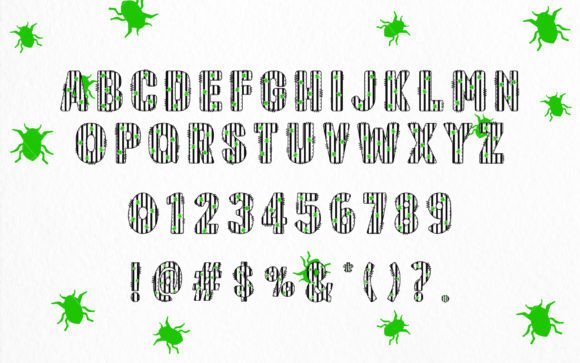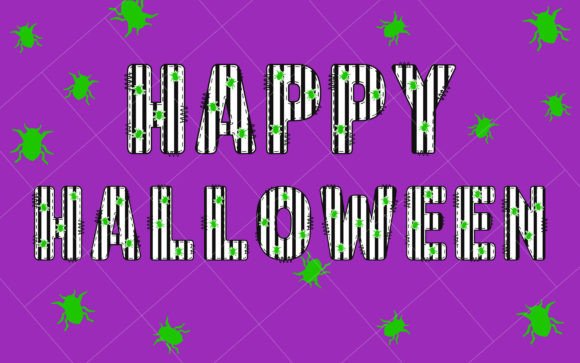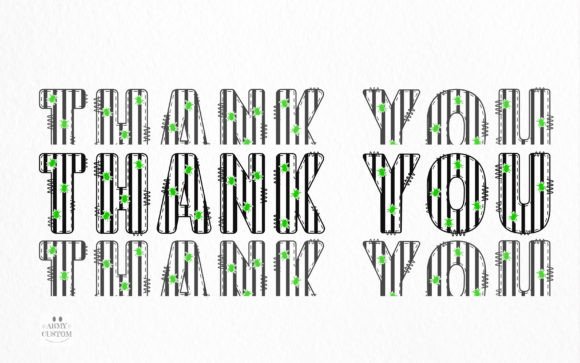
Unleash Your Creativity with the Beetle Army Font
Have you ever felt that rush of excitement when you’re brainstorming a new project, surrounded by scraps of paper, glue, and an endless supply of imagination? It’s that moment when anything seems possible, and your creativity knows no bounds. For designers and crafty enthusiasts, the Beetle Army Font is about to become your new best friend.
This enchanting Halloween Doodle Font Color is designed to add a touch of magic to your creations, whether it’s a scrapbook page, a birthday card, or a blog banner. With its unique charm and spellbinding design, the Beetle Army Font is a valuable addition to any designer’s toolkit. Its versatility makes it perfect for a variety of projects, from arts and crafts to interior design and digital graphics.
- Unique Characteristics: Beetle Army Font features a distressed, army-inspired aesthetic with bold lines, rough textures, and a vintage feel.
Designer Review: Beetle Army Font
At first glance, I thought Beetle Army Font was a quirky, attention-grabbing font that would work well for any project needing a bold statement. ✨ And I’m not entirely wrong! It’s perfect for any project where you want to add a touch of playfulness and fun.
Here are some of its strengths:
- Unique character set: Beetle Army Font has a distinctive set of characters that will instantly make your design stand out.
- Fun and quirky feel: As I mentioned earlier, this font is perfect for any project where you want to add a touch of playfulness and fun.
- Good legibility: Despite its bold and playful nature, Beetle Army Font is still easy to read, making it a great choice for any project where readability is a concern.
- Limited use cases: Beetle Army Font is best suited for projects where you want to add a touch of playfulness and fun. It may not be the best choice for more serious or professional projects.
- May not be suitable for small text: Due to its bold and playful nature, Beetle Army Font may not be the best choice for small text or headlines where readability is a concern.
Overall, I think Beetle Army Font is a great addition to any designer’s toolkit. While it may have some limitations, its unique character set and fun feel make it a great choice for the right project.
For the best results, use the Beetle Army Font in bold or italic styles to add emphasis and contrast to your text. Experiment with different font sizes and combinations to create visually appealing designs. Consider pairing the Beetle Army Font with other bold or distressed fonts for a unique look.
The Beetle Army Font is ideal for use in logos, branding materials, and promotional items such as stickers, flyers, and posters. It’s also great for use in digital products like mobile apps, video games, and websites. The font’s bold and distressed style makes it perfect for creating eye-catching and memorable designs.